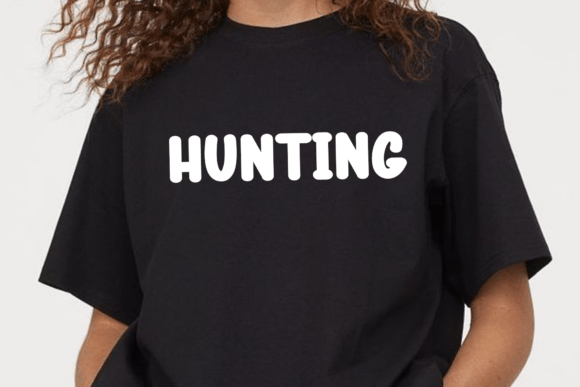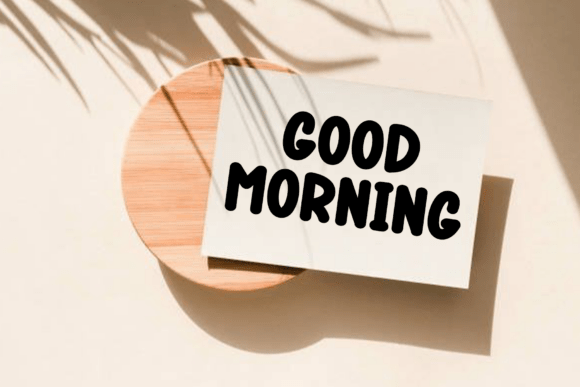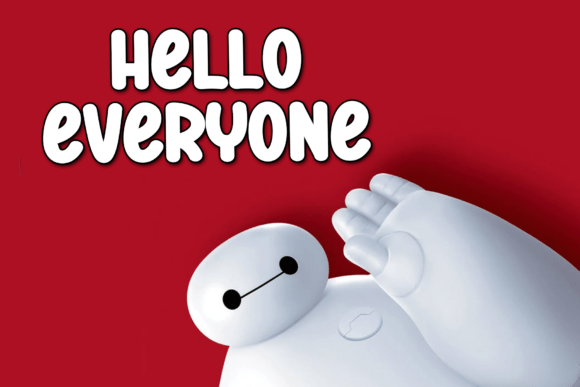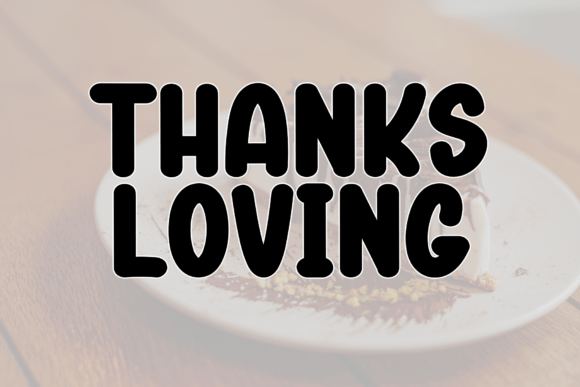
The Creamy Font: A Game-Changer for Designers and Crafters
I’ll never forget the time I was working on a branding project for a new coffee shop. I had spent hours perfecting the logo, but something was off. The font I was using just didn’t feel right – it was either too formal or too quirky. That’s when I stumbled upon the Creamy font, and it was like a breath of fresh air. With its clean lines, balanced letterforms, and subtle rounded edges, it captured the essence of modern handwritten typography with a polished finish.
What Makes Creamy So Special?
Creamy is a casual and neat display font that combines simplicity with a friendly, approachable vibe. It’s ideal for branding, headlines, packaging, and digital content, adding a warm and inviting touch to any design. With its crisp structure and versatile style, this font delivers clarity and charm in equal measure.
My Honest Review
So, what do I love about Creamy? Here are a few things that make it stand out:
- ✨ Clean and simple design: Creamy has a clean and simple design that’s perfect for creating a professional look.
- ✅ Versatile style: This font is versatile and can be used for a variety of design projects, from branding to packaging.
- 💕 Warm and inviting feel: Creamy has a warm and inviting feel that’s perfect for creating a friendly and approachable vibe.
Of course, no font is perfect, and Creamy is no exception. Here are a few small quirks to keep in mind:
- 🤔 Limited use in formal contexts: While Creamy is a beautiful font, it may not be the best choice for formal contexts, such as academic papers or business reports.
- ⚠️ May not work well with serif fonts: Creamy is a sans-serif font, and it may not work well with serif fonts. Be sure to test it with your chosen font to ensure it looks great.
The Story Behind Creamy
Creamy was designed by a team of typographers who wanted to create a font that was both modern and approachable. They drew inspiration from traditional handwritten typography, but with a clean and polished finish. The result is a font that’s perfect for creating designs that need a friendly and inviting touch.
- Q: What type of designs is Creamy best suited for?
- A: Creamy is best suited for designs that need a friendly and inviting touch, such as branding, headlines, packaging, and digital content.
- Q: Is Creamy a sans-serif font?
- A: Yes, Creamy is a sans-serif font with clean lines and a modern feel.